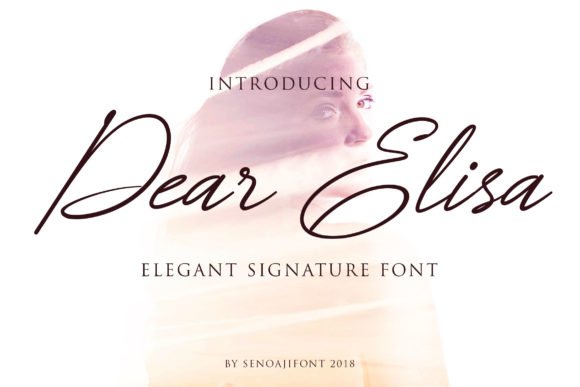
Adding a Touch of Elegance to Your Designs
Have you ever been stuck in a creative rut, struggling to find the perfect font to elevate your design? You know, that moment when you’re staring at a blank page, desperately searching for the perfect combination of style and sophistication? For many designers, that moment is a reality. But what if you could add a touch of elegance to your designs with a single font?
Enter the Dear Elisa Font, a modern handwritten script that’s perfect for branding, signatures, watermarks, business cards, clothing, magazines, and every other design that needs a luxurious feel. This beautiful font is more than just a pretty face – it’s a valuable tool for designers looking to add a touch of sophistication to their work. Whether you’re a seasoned pro or just starting out, the Dear Elisa Font is sure to be a game-changer.
Dear Elisa Font Key Features
- Font Family: Dear Elisa is a script font designed to evoke a sense of elegance and sophistication.
- Unique Characteristics: Dear Elisa features a unique blend of cursive and handwritten styles, with intricate flourishes and subtle texture.
Dear Elisa Font Review
Overall, I think Dear Elisa is a beautiful script font that can add a touch of elegance to any design project. ✨ It’s got a lovely, handwritten feel that’s perfect for invitations, greeting cards, and other personal correspondence.
Here are some of the things that work well in this font:
- Soft, flowing lines that evoke a sense of whimsy and charm
- A wide range of ligatures that help to create a natural, handwritten feel
- Good support for Latin-based languages, making it a versatile choice for designers
That being said, there are a few limitations to keep in mind:
- Dear Elisa can be a bit difficult to read at small font sizes, especially in digital applications
- The font doesn’t include a bold or italic weight, which can limit its versatility
- The character set is limited to Latin-based languages, which may not be suitable for designers working with non-Latin scripts
- ⚠️ Some users may find the font too ornate or fussy for certain design applications
Overall, I think Dear Elisa is a lovely font that’s perfect for designers looking to add a touch of elegance to their projects. While it may have some limitations, its unique charm and character make it a great choice for the right design applications.
Tips for Getting the Most Out of “Dear Elisa Font”
For best results, use “Dear Elisa Font” in combination with elegant and minimalist design elements. Avoid using it for bold or loud headlines, as it may clash with the font’s delicate nature.
“Dear Elisa Font” is ideal for:
- Personalized gifts and cards
- Editorial and literary designs
- Wedding and event branding
Alternatives to “Dear Elisa Font” for Designers
Playfair Display is a high-end, elegant serif font suitable for titles and headings. It features intricate details and connections between letters. Use it for formal invitations, luxury brands, or high-end magazines.
Comparison: While “Dear Elisa Font” has a more modern and playful feel, Playfair Display is more traditional and sophisticated. It’s ideal for projects that require a touch of luxury and sophistication.
Great Vibes is a beautiful, elegant script font perfect for creative and artistic projects. It features flowing connections and a soft, romantic feel. Use it for wedding invitations, greeting cards, or branding for creative businesses.
Comparison: Unlike “Dear Elisa Font,” Great Vibes is more delicate and refined. It’s suitable for projects that require a touch of elegance and sophistication, but with a softer, more romantic feel.